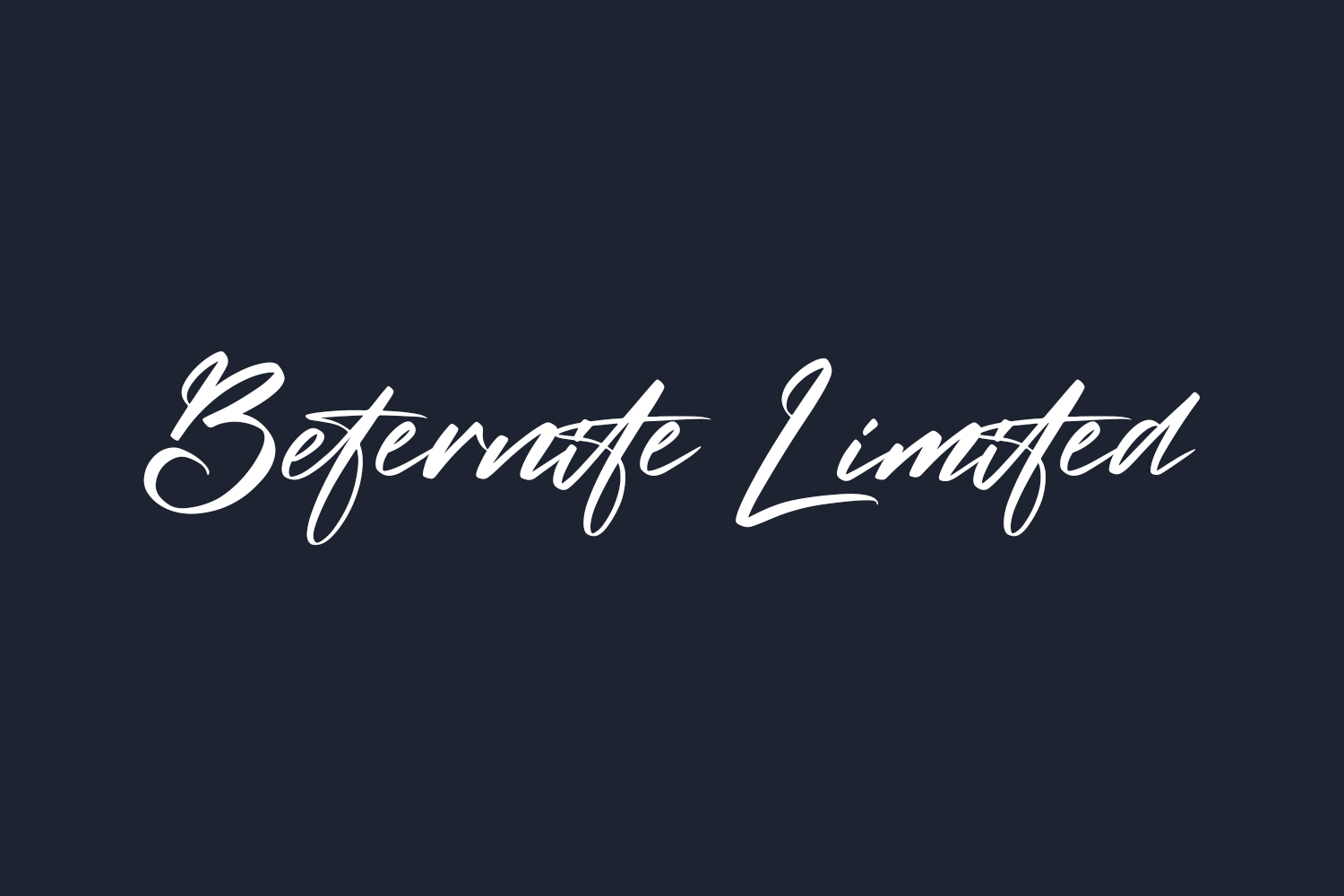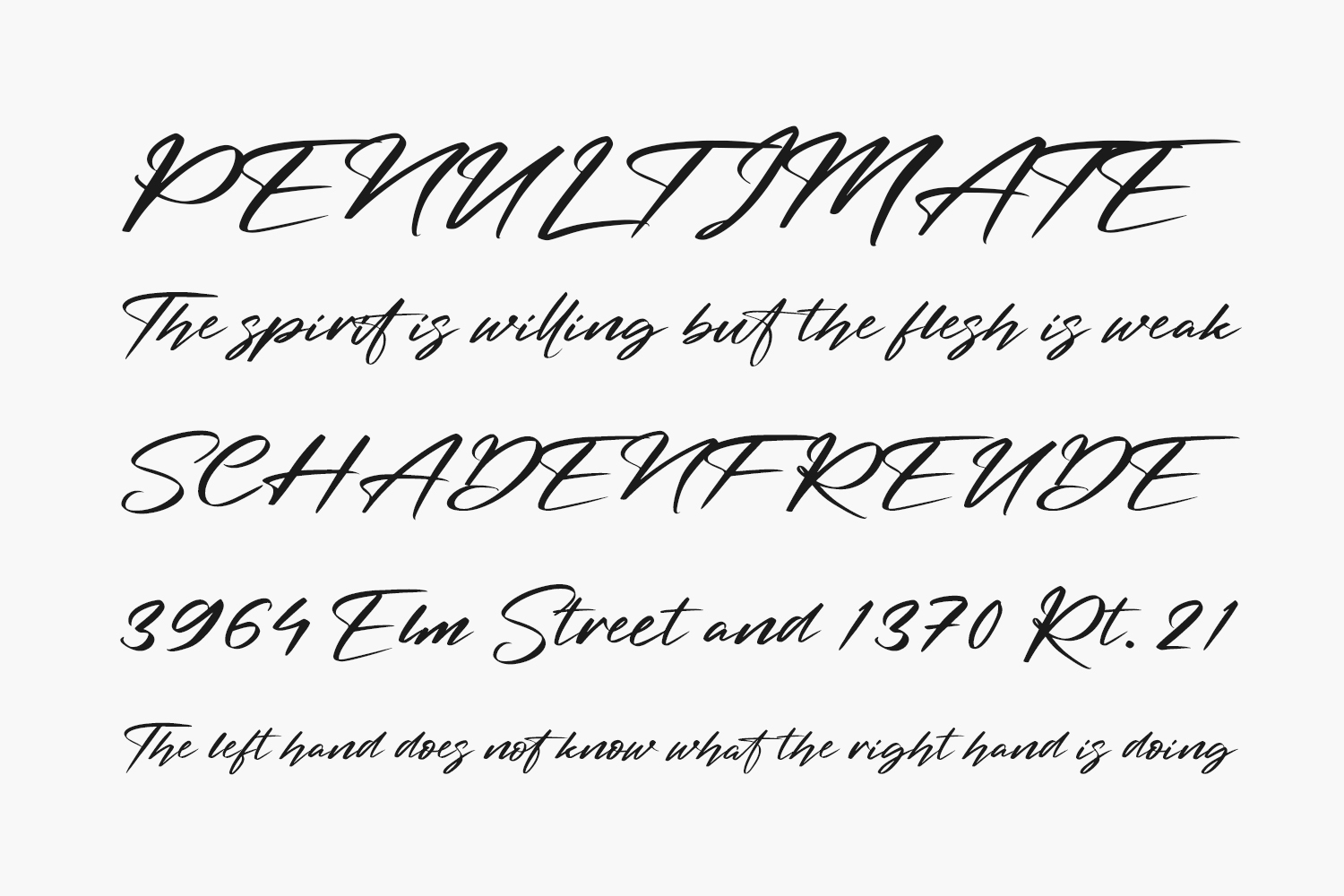
Beternite Limited Free Font is a beautiful, cursive, and dainty script font. This sweet and adaptable script font has a wide spectrum of applications ranging from greeting cards to headlines and is guaranteed to add a romantic feel to your next project. Beternite Limited Free Font was designed by Perspectype Studio and is free for personal use only. Please purchase the full version for commercial use.